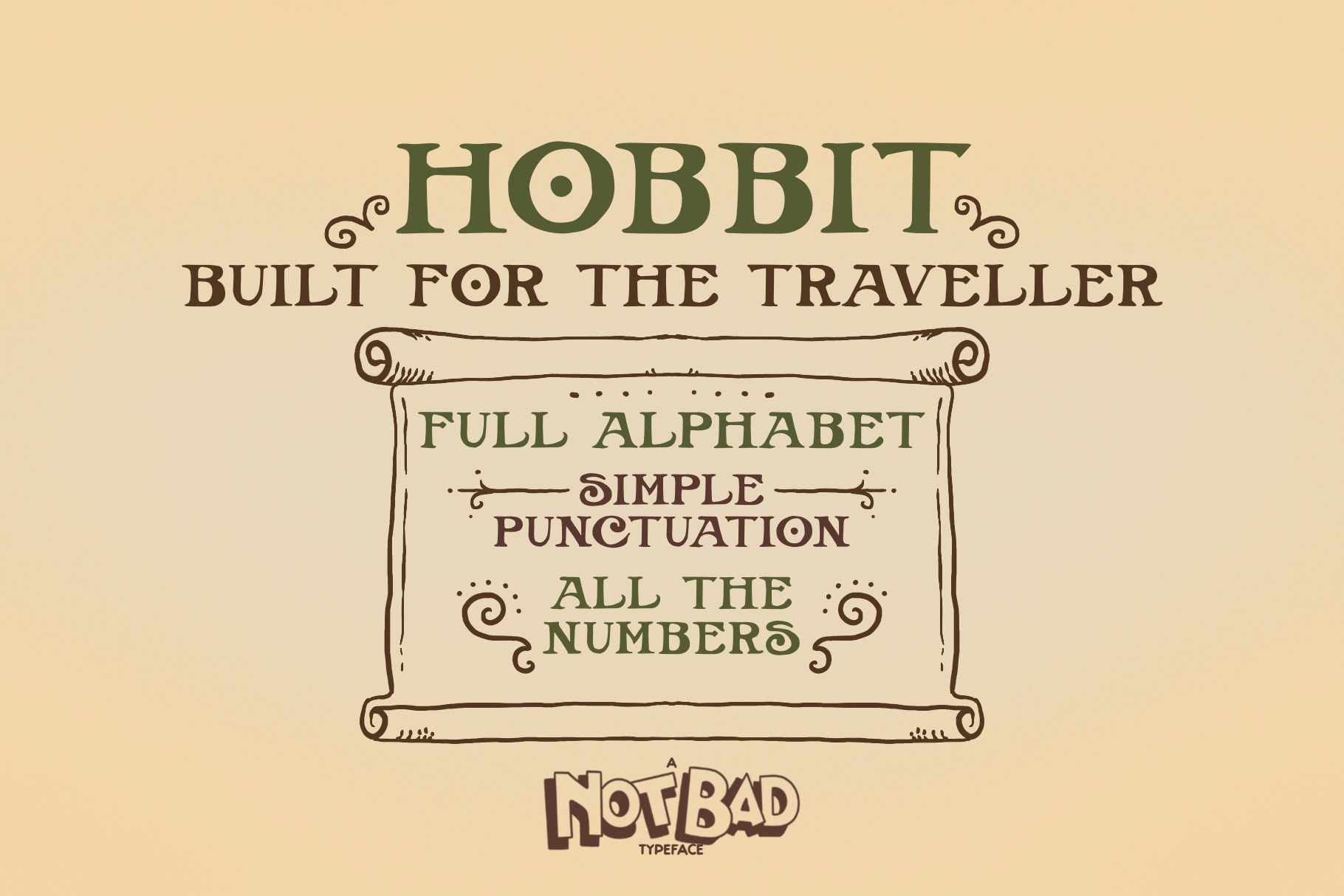
Hobbit Typeface by TWRUSHING
Hand drawn font representative of the counterculture, 70's fantasy and the good ole spirit of the wood. Contains letters, numbers and simple punctuation.